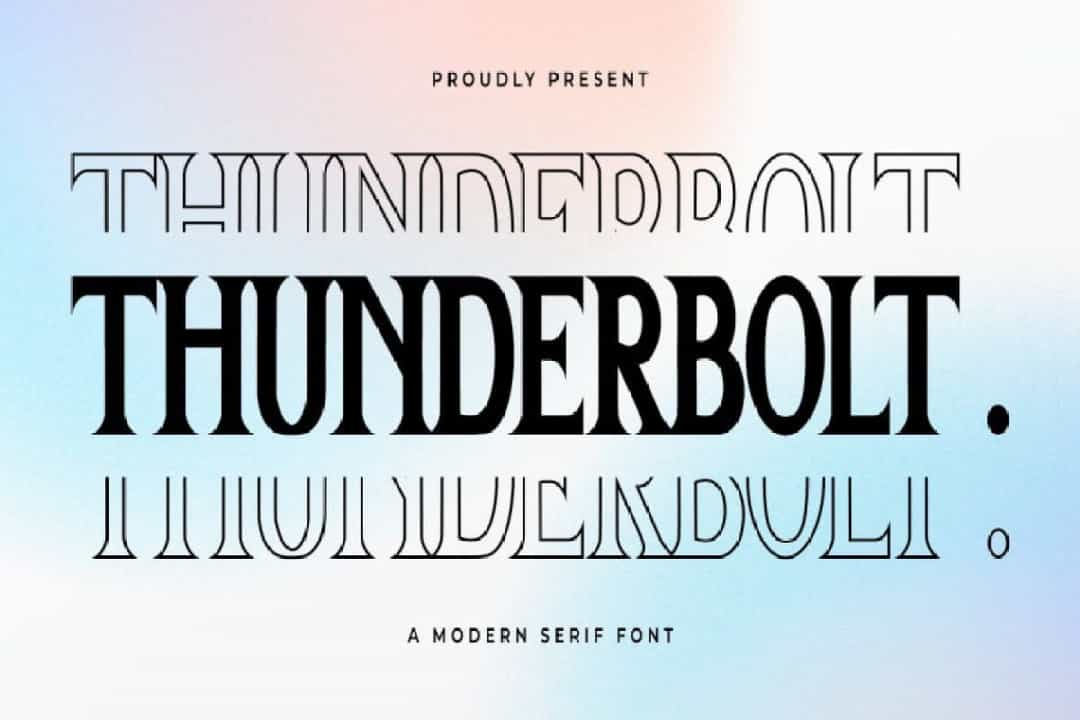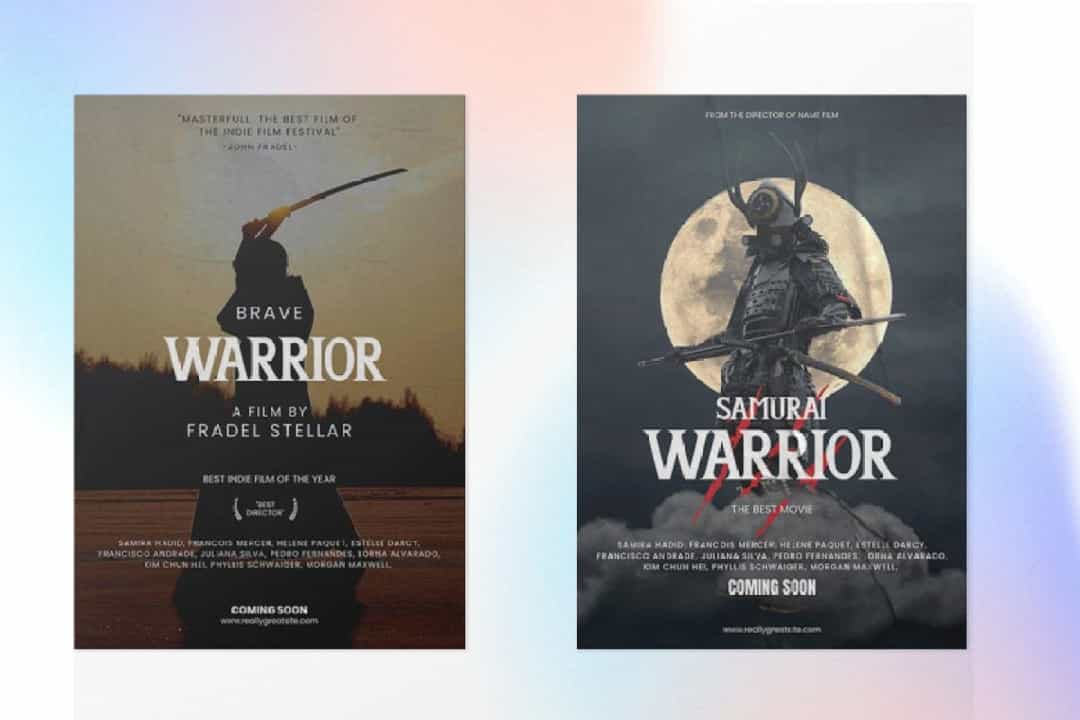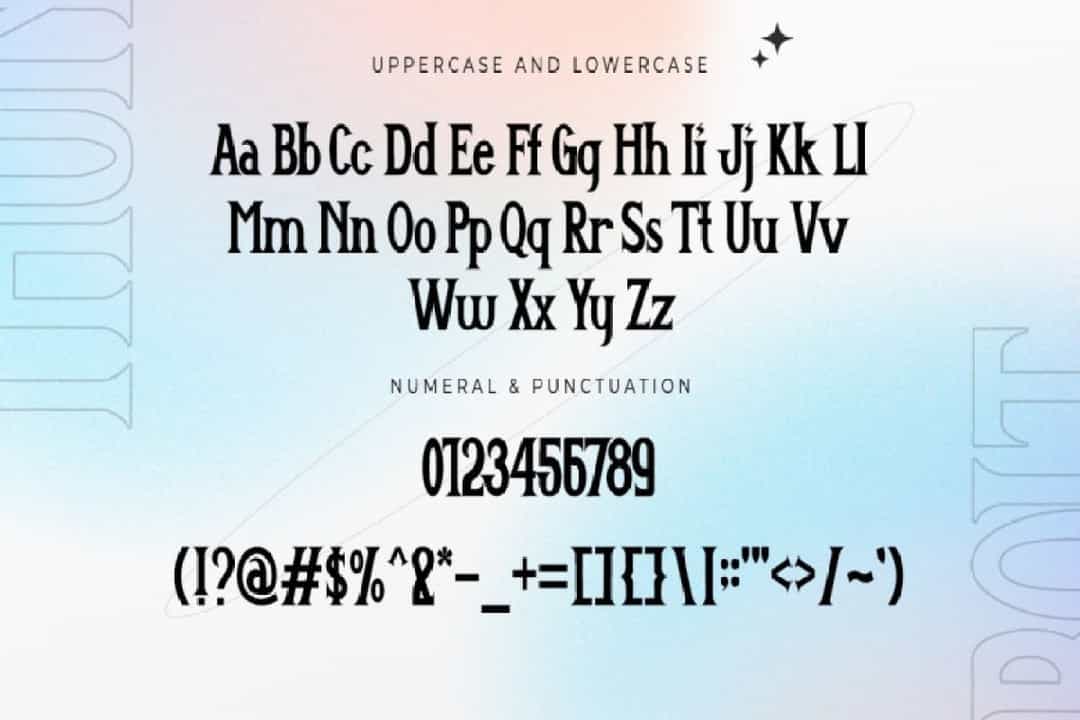
Thunderbolt is an elegant and professional serif typeface perfect for many design themes such as covers, posters T-shirt designs and professional-looking designs – including book covers! Plus it will help make those designs stand out even further!